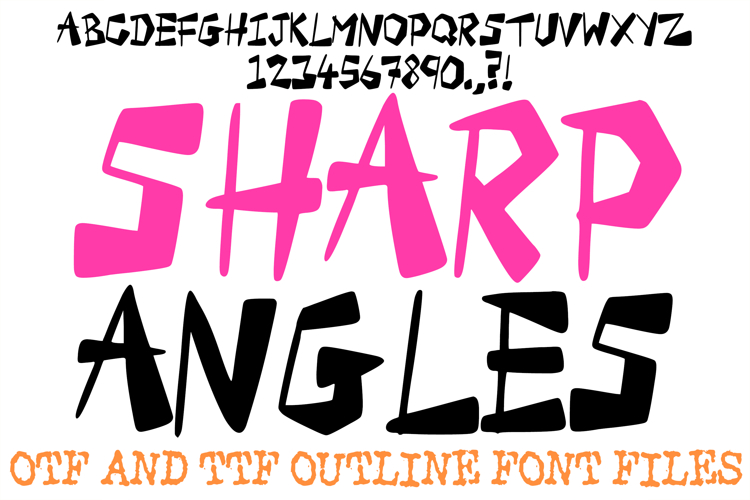
The Sharp Angles Font is an edgy, high-energy display typeface defined by its jagged silhouettes and aggressive, geometric construction. Featuring irregular, hand-cut letterforms that mimic the look of shards or chiseled ink, this font is a go-to for designers working on streetwear branding, alternative music posters, skate culture graphics, and modern zine layouts.
Crafted with a raw, "anti-design" aesthetic, Sharp Angles breaks away from traditional symmetry to offer a high-impact, rebellious feel. Whether you are creating a bold logo for an indie brand or designing distorted, avant-garde headers for a social media campaign, this font’s sharp, unpredictable paths ensure your message stands out with a gritty, handcrafted edge.
Why Your Designs Will Stand Out
Aggressive Jagged Silhouette: The sharp, splintered edges provide a built-in sense of tension and energy, perfect for designs that need to command immediate attention.
Hand-Chiseled Geometry: Each character features unique, non-uniform widths and angles, giving your typography a custom, "rough-cut" look.
Modern Grunge Aesthetic: Captures the raw essence of street art and DIY culture, making it ideal for edgy, contemporary branding projects.
Clean Vector Paths: Despite its "rough" look, the outlines are meticulously drawn for high-quality rendering on apparel, vinyl decals, and digital screens.